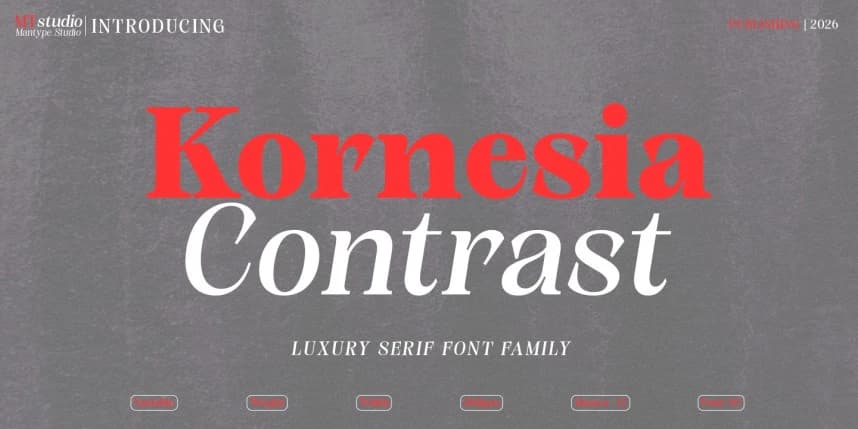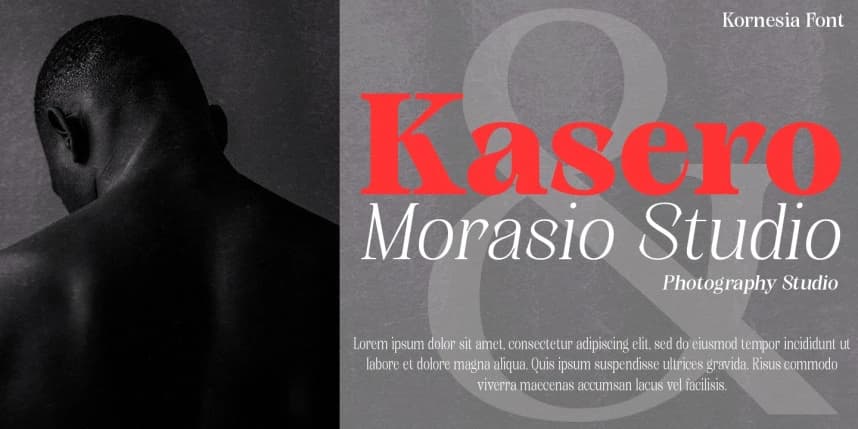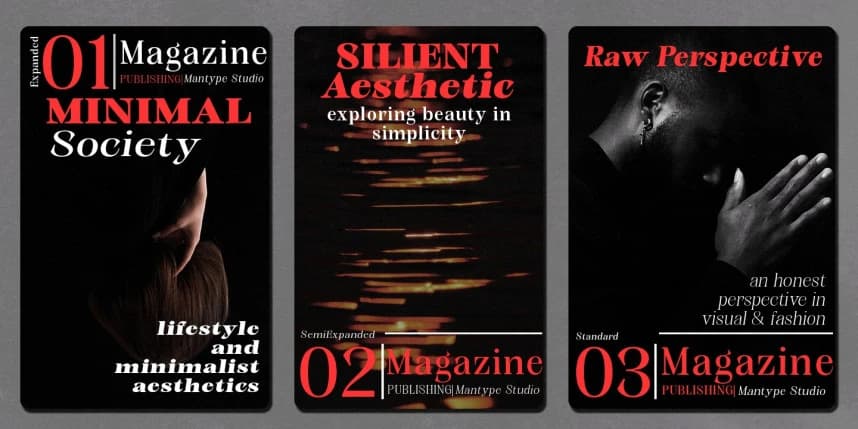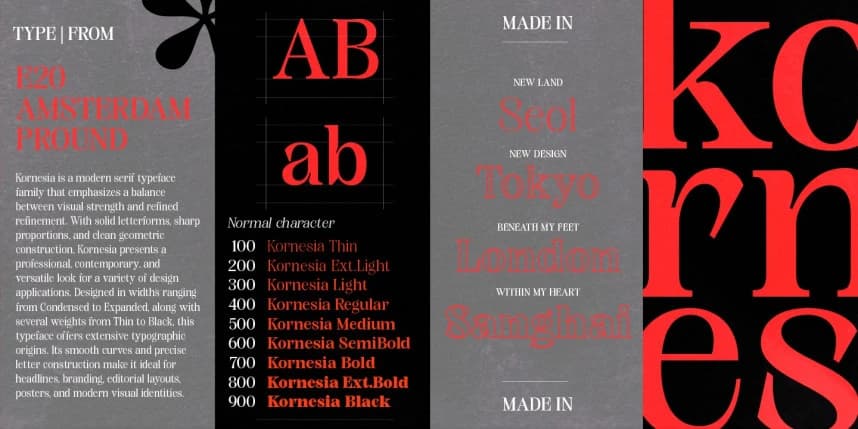
Kornesia Contrast Font
Kornesia Contrast Font is a luxury serif font with high contrast between thick and thin strokes, delivering an elegant, modern, and premium feel. Designed with balanced proportions and refined details, it stands out in headlines while maintaining good readability.
Kornesia Contrast